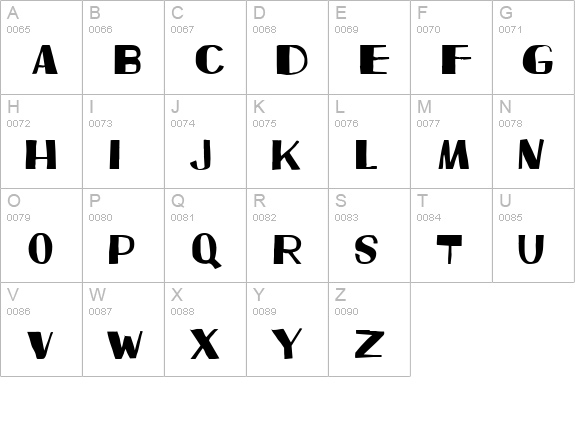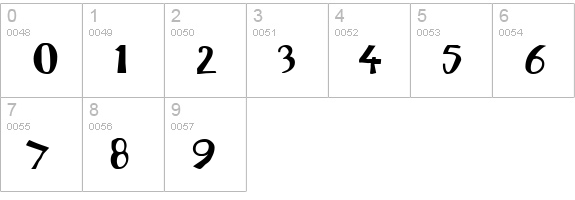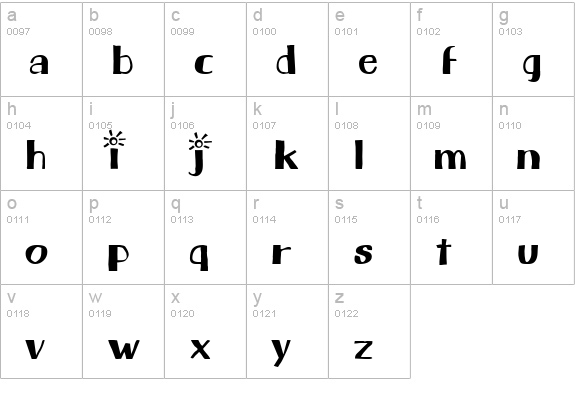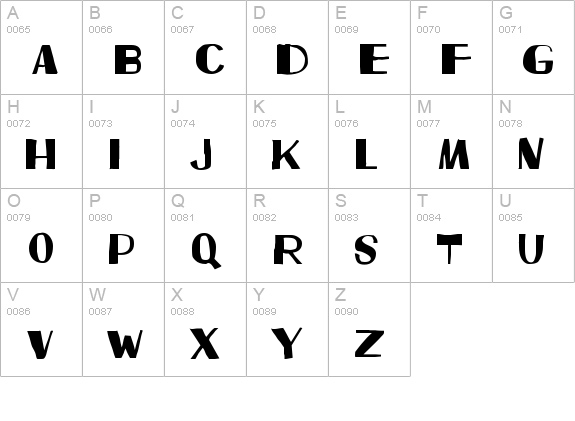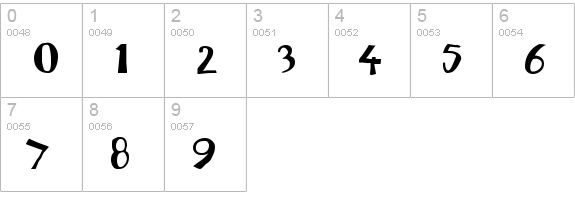
Introducing Beam font - a sleek and modern typeface that exudes elegance and sophistication. With its clean lines and sharp angles, Beam is perfect for adding a touch of contemporary flair to any design project. Whether you're creating a logo, website, or printed materials, Beam font will make your text stand out with its unique style. The best part? Beam font is completely free to download at FontsMarket.com. That's right, you can get your hands on this stunning typeface at no cost, making it a must-have addition to your font collection. Don't miss out on the opportunity to elevate your designs with the effortlessly chic Beam font. Download it today and start creating beautiful typography that captures attention and leaves a lasting impression.